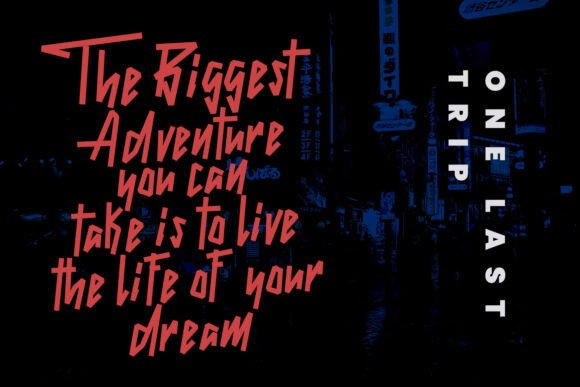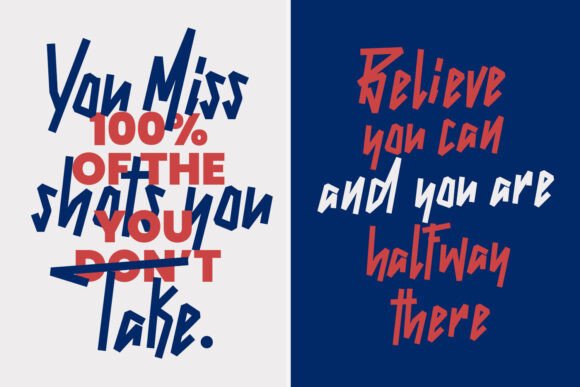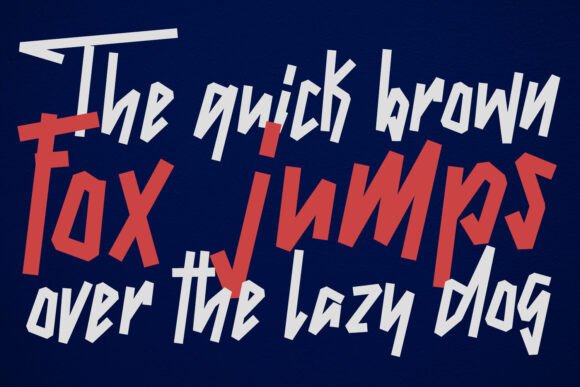
Introduction to Awenty Eight Font
Give your designs an authentic brush handcrafted feel.
β€œAwenty Eight Display Script Font” is perfectly suited to signature, stationery, logo, typography quotes, website header, branding and more .
Key Features of Awenty Eight Font
Why Choose Awenty Eight Font?
Awenty Eight Font offers exceptional quality and versatility, making it a valuable addition to your design toolkit. Whether you’re creating for personal projects or commercial use, Awenty Eight Font delivers professional results.